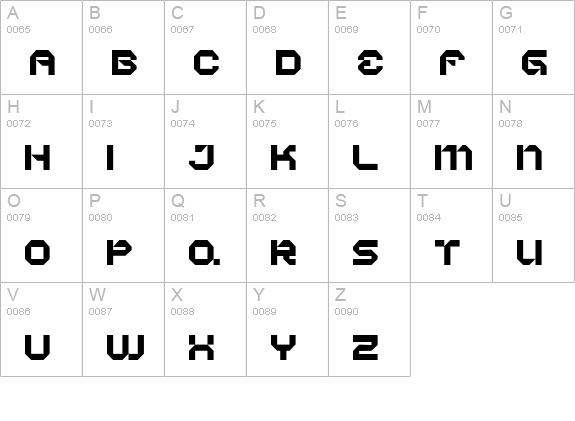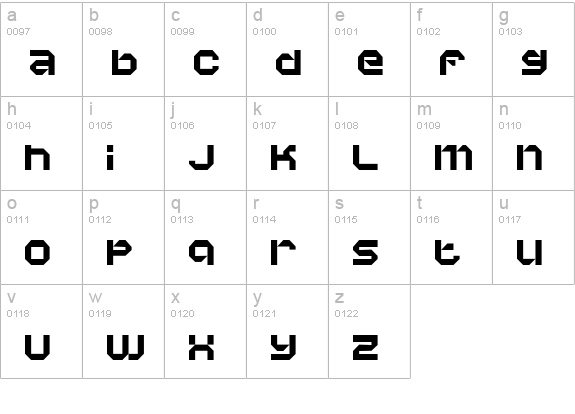
Vaporbyte Font Details
Introducing Vaporbyte, a stunning font that effortlessly merges the worlds of technology, futurism, and elegance. This typeface is the perfect choice for creating sleek and sophisticated designs that demand attention. With its clean lines and sleek curves, Vaporbyte exudes a sense of modernity and innovation. But what sets Vaporbyte apart from other fonts is its availability - it's absolutely free! Yes, you read that right. This incredible font can be easily downloaded at FontsMarket.com, making it accessible to anyone who craves a touch of sophistication in their design projects. Whether you're designing a cutting-edge website, a sleek logo, or even a futuristic poster, Vaporbyte will elevate your creations to the next level. Its versatility allows it to seamlessly blend into any design, effortlessly enhancing the overall aesthetic and leaving a lasting impression on your audience. The characters in Vaporbyte possess a unique balance of sharp angles and smooth curves, adding a touch of edginess to your typography. The attention to detail in every glyph is impeccable, ensuring legibility and readability even at smaller sizes. With Vaporbyte, you have the power to convey a sense of technological prowess and forward-thinking in your designs. It's the font that effortlessly captures the essence of a modern world, where innovation and elegance go hand in hand. Don't miss out on this incredible opportunity to download Vaporbyte for free at FontsMarket.com. Enhance your designs, stand out from the crowd, and make a lasting impression with this remarkable font. Experience the power of Vaporbyte today!